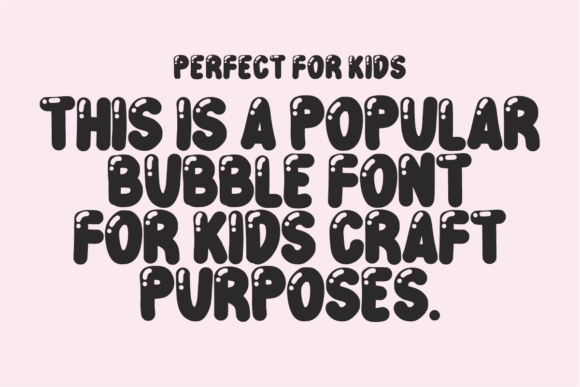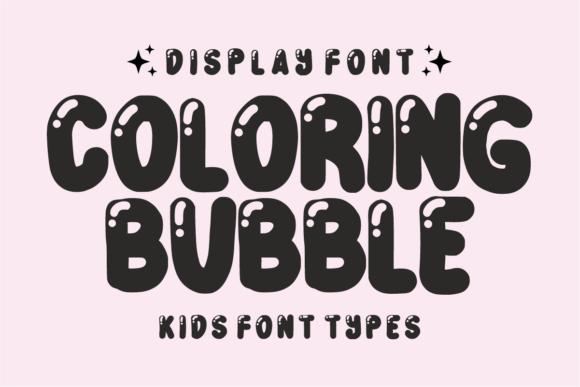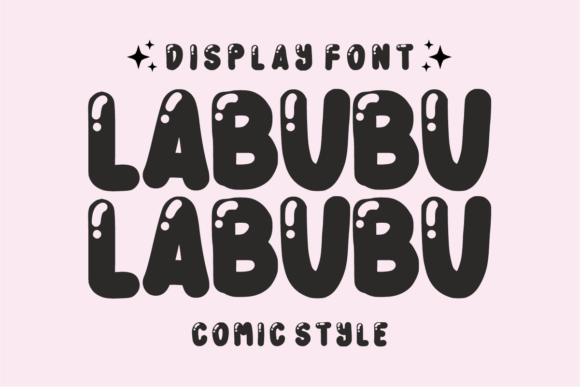
Introducing Black Bubble Font: The Ultimate Display Font for Creative Projects
Are you a designer, crafter, or DIY enthusiast looking for a unique and versatile font to elevate your creative projects? Look no further than the Black Bubble Font, a handcrafted display font with a fun and playful bubble style. In this article, we’ll dive into the features and benefits of this fantastic font, and explore how it can enhance your designs, from logos and greeting cards to mugs, t-shirts, and more.
What is Black Bubble Font?
Black Bubble Font is a carefully crafted display font designed to add a touch of whimsy and personality to your creative projects. With its distinctive bubble style, this font is perfect for making a statement and grabbing attention. Whether you’re working on a logo, invitation, or social media graphic, Black Bubble Font is sure to make your design stand out from the crowd.
Key Features of Black Bubble Font
- Handcrafted with love: Each letter and character has been carefully designed and crafted to ensure a unique and authentic look.
- Bubble style: The font’s playful bubble style adds a fun and carefree touch to any design.
- Display font: Black Bubble Font is perfect for headlines, titles, and short text passages, making it ideal for display purposes.
- Versatile: This font can be used for a wide range of creative projects, from logos and branding to crafts, DIY projects, and more.
How to Use Black Bubble Font
Black Bubble Font is incredibly versatile and can be used for a variety of creative projects, including:
- Logos and branding: Add a playful touch to your logo and brand identity with this unique font.
- Greeting cards and invitations: Create eye-catching and personalized cards and invitations for special occasions.
- Mugs and t-shirts: Add a fun and quirky touch to your apparel and accessory designs.
- Comics and illustrations: Use Black Bubble Font to add speech bubbles and captions to your comics and illustrations.
- Crafts and DIY projects: Add a personal touch to your craft and DIY projects, such as scrapbooking, journaling, and more.
Benefits of Using Black Bubble Font
So why choose Black Bubble Font for your creative projects? Here are just a few benefits:
- Unique and eye-catching: This font is sure to grab attention and make your design stand out.
- Easy to read: Despite its playful style, Black Bubble Font is clear and easy to read, making it perfect for display purposes.
- Time-saving: With Black Bubble Font, you can create professional-looking designs in no time, without having to spend hours designing from scratch.
Tips and Tricks for Using Black Bubble Font
To get the most out of Black Bubble Font, here are a few tips and tricks:
- Experiment with colors: Try pairing Black Bubble Font with bright and bold colors to really make your design pop.
- Play with sizes: Experiment with different font sizes to create visual interest and hierarchy in your design.
- Mix and match: Combine Black Bubble Font with other fonts and styles to create a unique and eye-catching design.